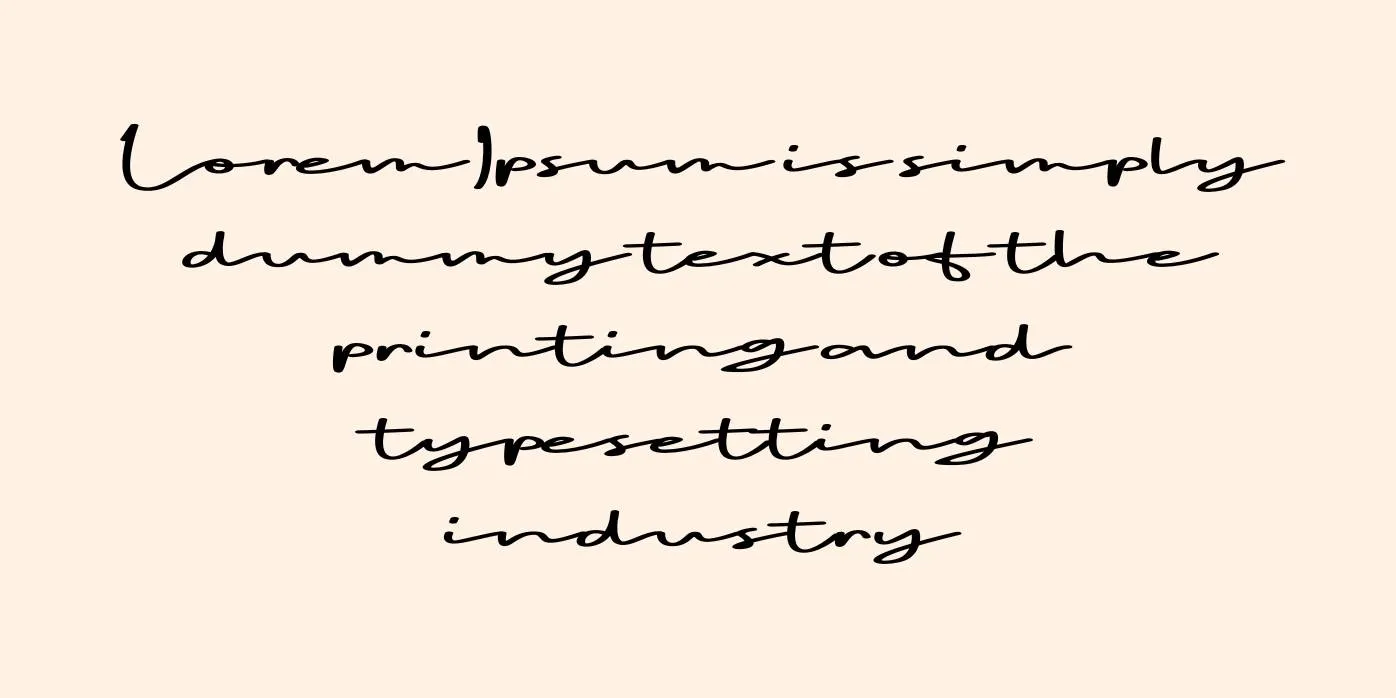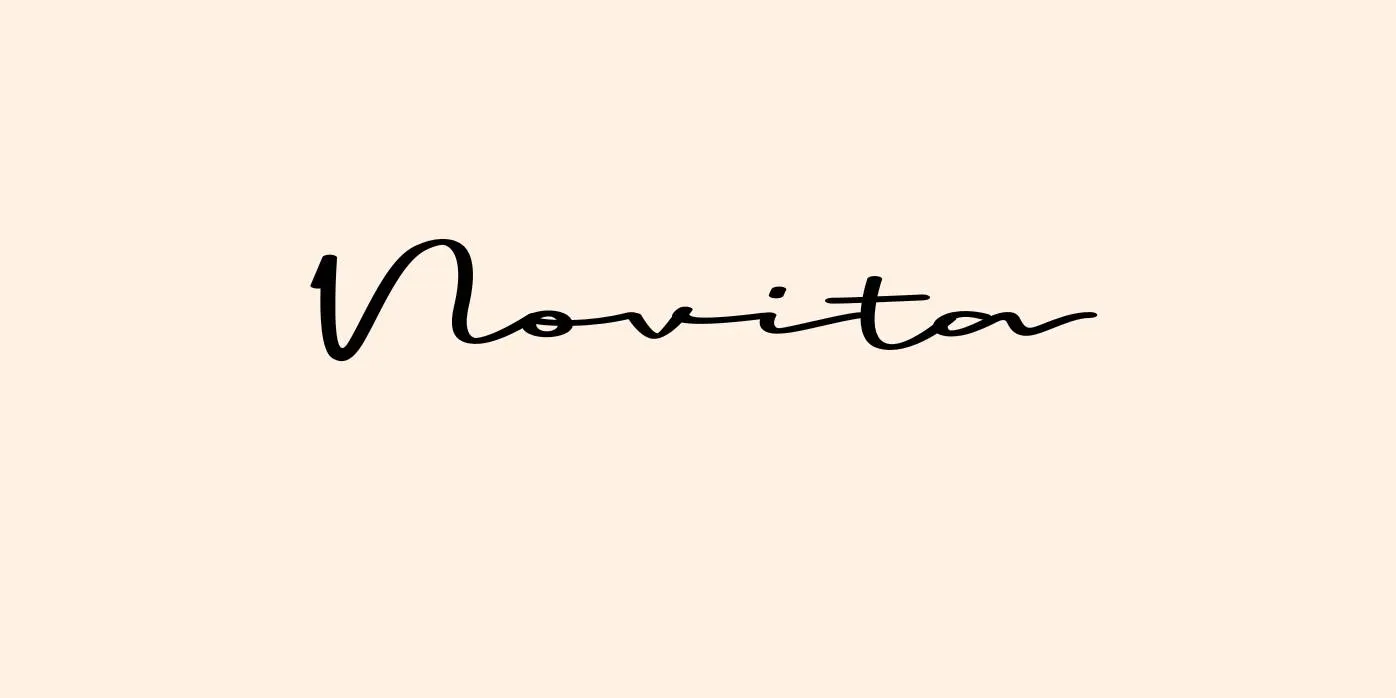
Novita Font
Introducing you to a handwritten type of font that is designed to give a stunning look to your project. Novita Font is an amazing font that has unequaled spaced, looming, and stretched characters. If you are interested in downloading this handwritten type of font then you have to press the download button. An online generator tool for this typeface is stunning and amazing.